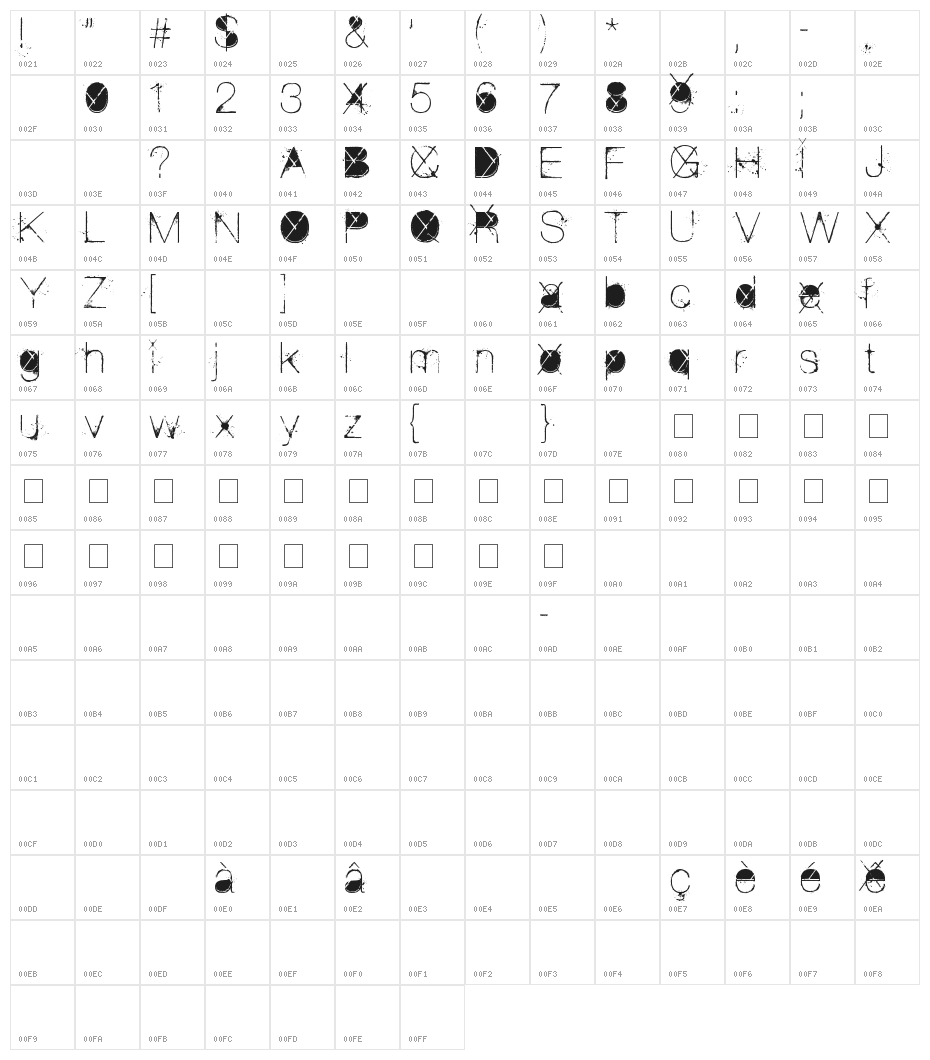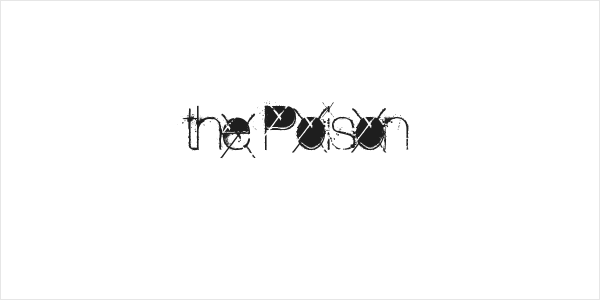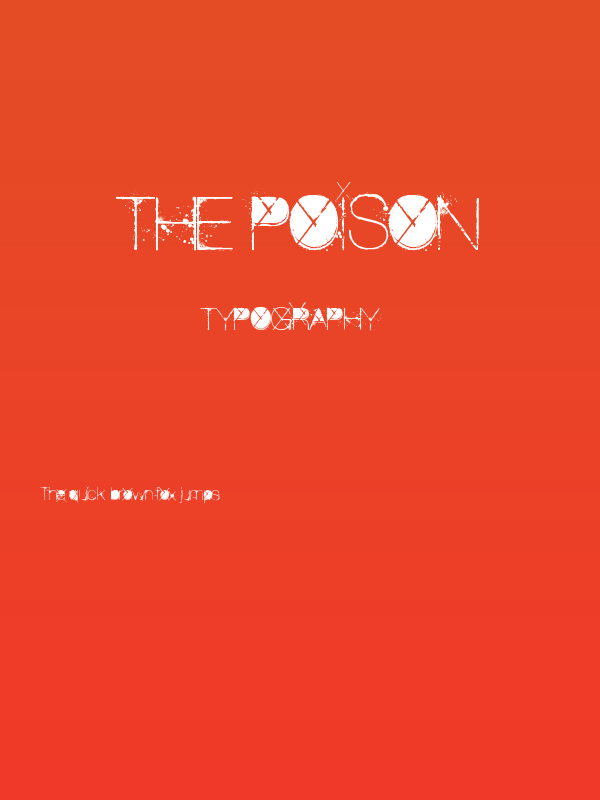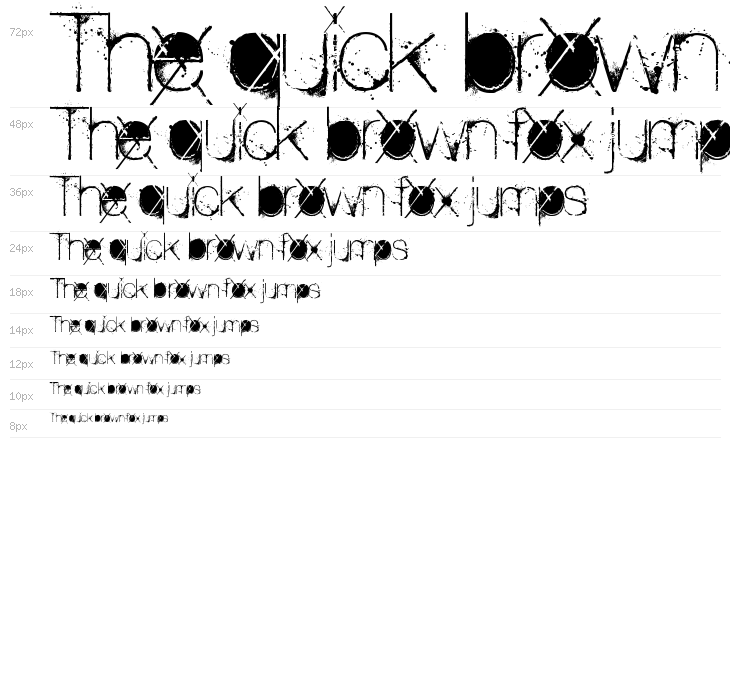
the Poison Font
the Poison Description
This font features a distressed, grunge style with a unique, rough texture that gives it a worn and edgy appearance. The letters are characterized by irregular, jagged edges and a mix of solid and faded areas, creating a sense of chaos and movement. The design incorporates a combination of thin and thick strokes, with some letters appearing as if they have been scratched or eroded over time. This font is highly decorative and makes a bold statement, suitable for projects that require a strong visual impact. The overall look is both modern and rebellious, appealing to those seeking a distinctive and unconventional typeface.
| Overall Style | Modern, Grunge |
| Use Case | Headlines, Posters, Album Covers |
| Proposed Projects | Ideal for album covers, posters, urban-themed designs, and any project needing a bold, rebellious aesthetic. |